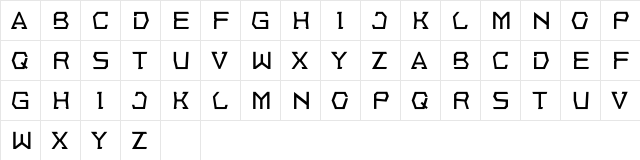
Corners Demo Normal
| Designer | Iunderline Art - Ihlas Muliardy, 2020 |
Design Context for Corners Demo Typeface
Corners Demo is a composed and adaptable typeface that performs quietly and consistently across a wide range of design contexts.